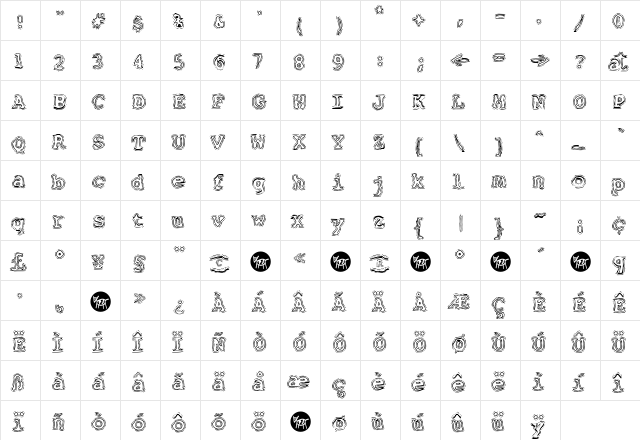
F2FAlLineato Regular
Design Context for F2FAlLineato Typeface
F2FAlLineato is a composed and adaptable typeface that performs quietly and consistently across a wide range of design contexts.
Pro Tip: Use F2FAlLineato in both headline and body roles to test its range before committing to a single application.